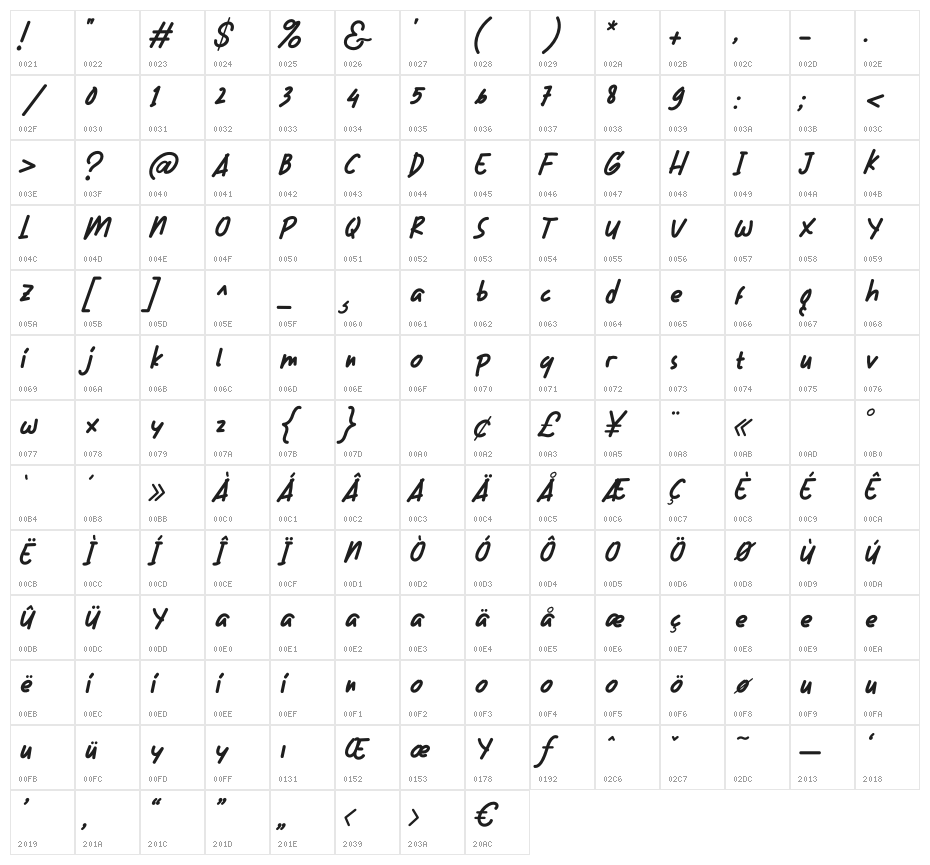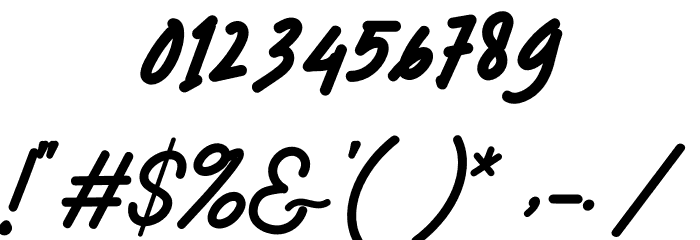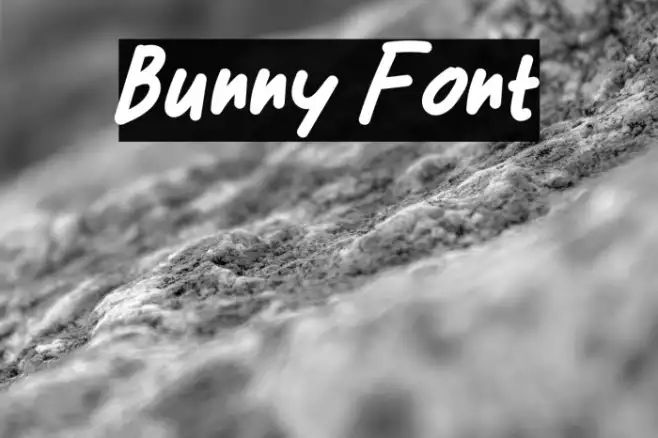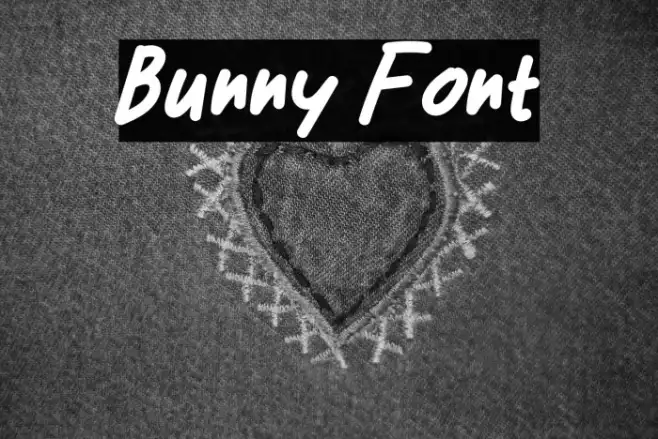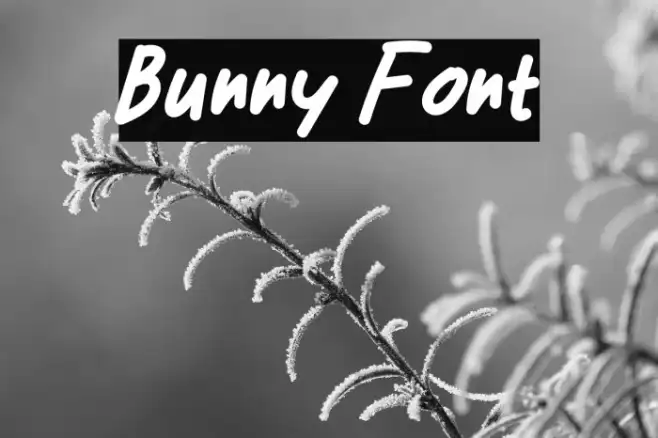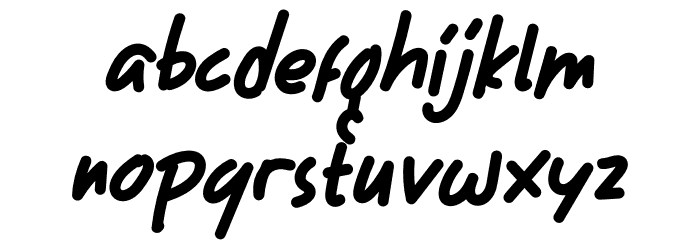
Bunny Font
Bunny Description
This font features a playful and energetic handwritten style, characterized by its bold and slightly slanted letterforms. The strokes are thick and consistent, giving it a strong presence on the page. The uppercase and lowercase letters maintain a casual and friendly appearance, making it suitable for informal and creative projects. The numbers and special characters are designed to match the overall aesthetic, ensuring a cohesive look across all text elements. Its dynamic and lively nature makes it ideal for projects that require a personal touch.
| Overall Style | Playful, Energetic |
| Proposed Projects | Perfect for greeting cards, playful branding, children's books, and social media graphics. |